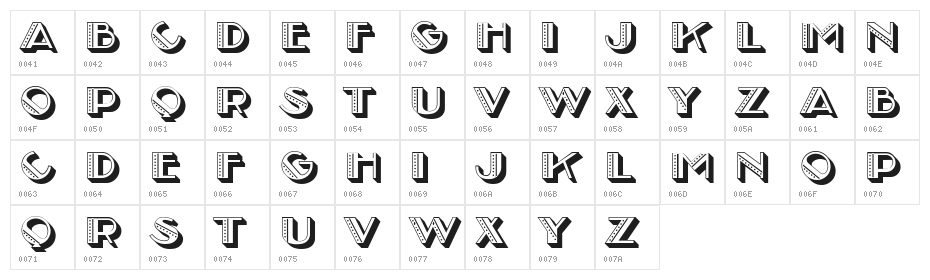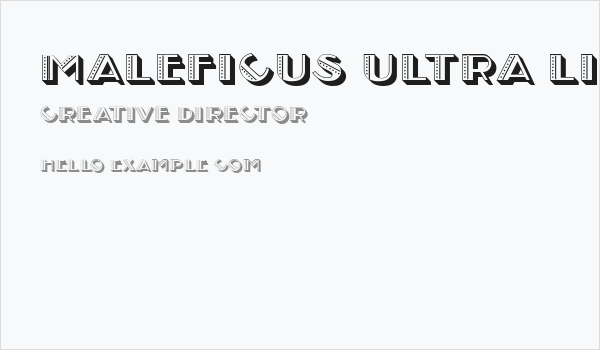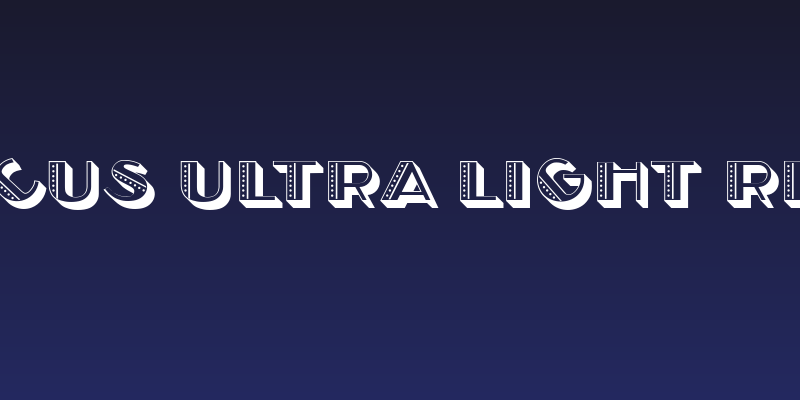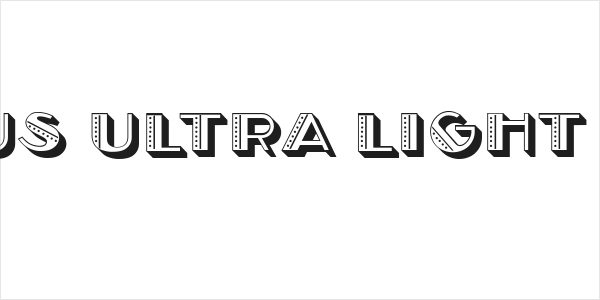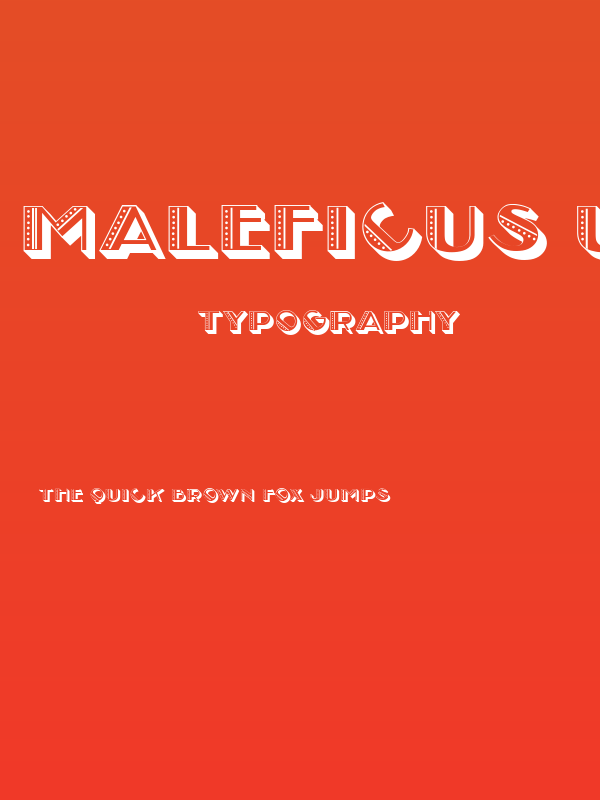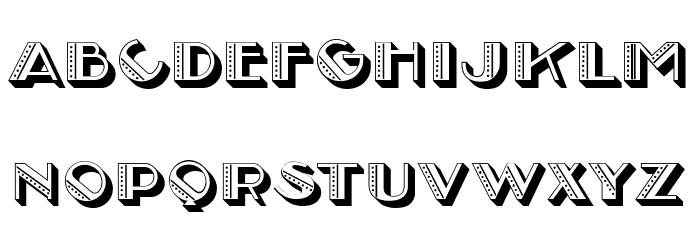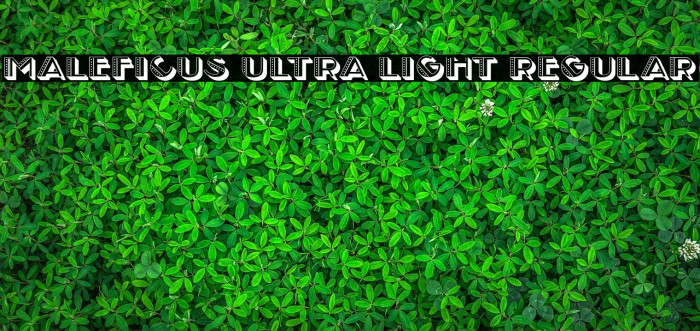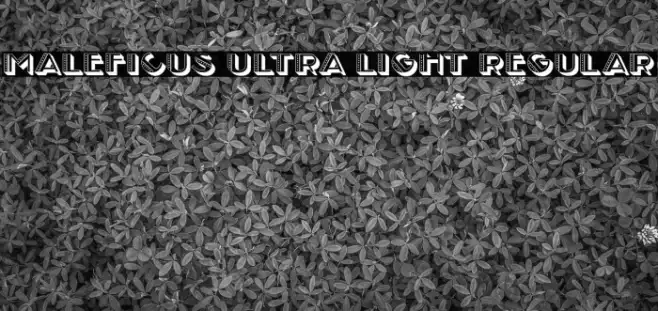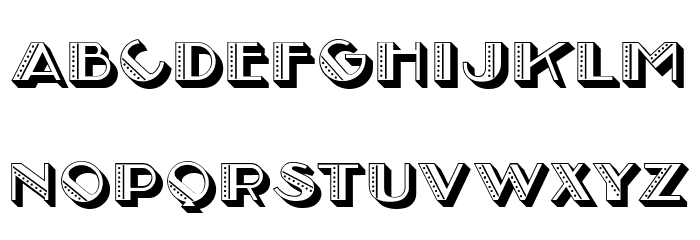
Maleficus Ultra Light Regular Font
Maleficus Ultra Light Regular Description
This font features a bold, decorative style with a three-dimensional effect that gives it a striking appearance. The letters are uppercase and exhibit a shadowed, layered look, enhancing their visual impact. Each character is outlined and filled with a pattern of dots or lines, adding texture and depth. The design is playful yet sophisticated, making it suitable for eye-catching headlines or titles. The font's geometric structure is consistent across all characters, ensuring a cohesive and balanced look.
| Proposed Projects | Ideal for posters, logos, book covers, and any project requiring a bold, attention-grabbing typeface. |